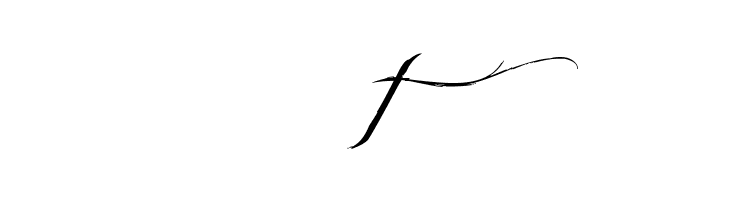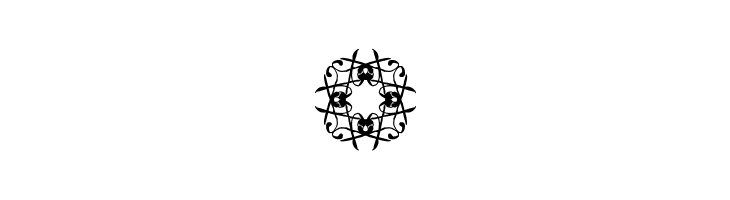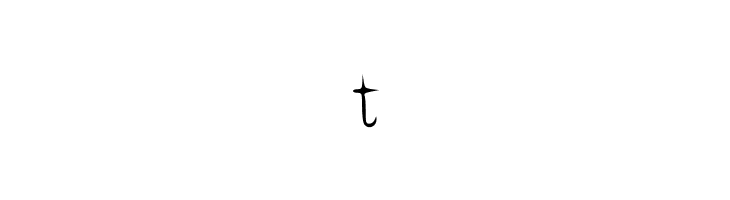
An intricate, nature-inspired decorative font with vine-like embellishments.
A dynamic, expressive script font with bold, sweeping strokes.
An ornate script font with elaborate swirls and vintage charm.
A whimsical, elegant cursive script with ornate flourishes.
An ornate script font with decorative swirls and elegant flourishes.